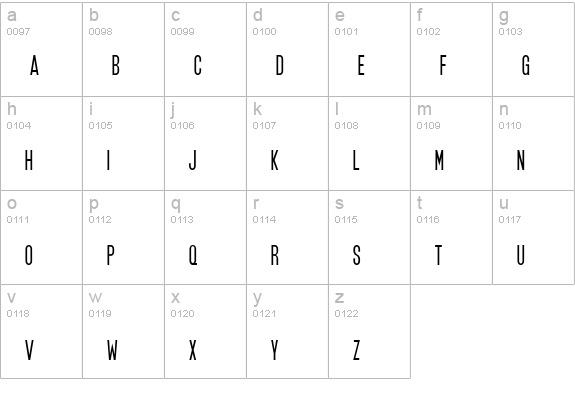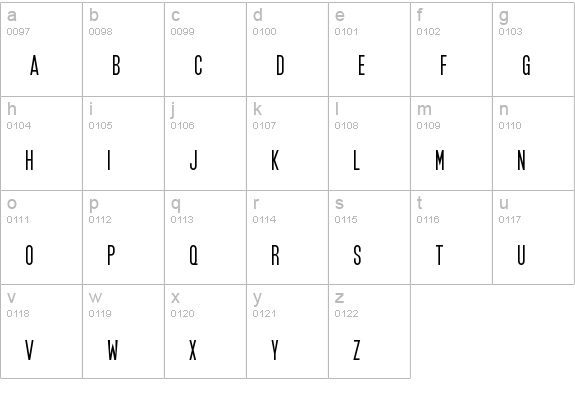
SF Movie Poster Font Details
Introducing the SF Movie Poster font, a captivating and futuristic typeface that will transport you into the thrilling world of science fiction. Designed with meticulous attention to detail, this font captures the essence of the genre, with its sleek lines, bold curves, and distinct futuristic flair. Embrace the power of this font as it brings your movie posters, book covers, or any creative project to life, instantly captivating your audience and immersing them in a world of adventure, mystery, and excitement. Whether you're creating a poster for an otherworldly space odyssey or a high-octane action-packed thriller, SF Movie Poster font has got you covered. But what sets this font apart is not only its stunning design, but also the fact that it is freely available to download. Yes, that's right! SF Movie Poster font can be yours at no cost, making it the perfect choice for budget-conscious designers, filmmakers, and enthusiasts who want to add a touch of sci-fi magic to their projects without breaking the bank. With SF Movie Poster font, you'll have the freedom to unleash your creativity and explore endless possibilities. So why wait? Head over to FontsMarket.com and download this incredible font today. Let your imagination take flight and create captivating designs that will leave a lasting impression on your audience. SF Movie Poster font - the perfect blend of futuristic elegance and affordability.